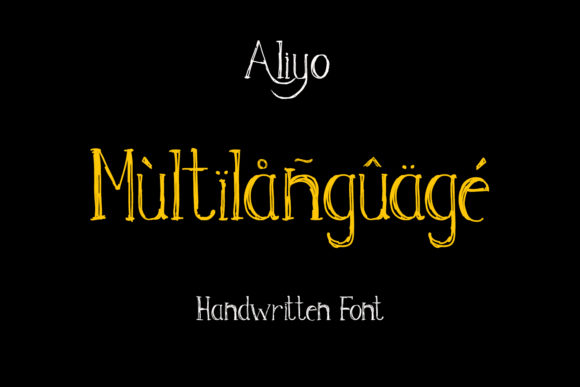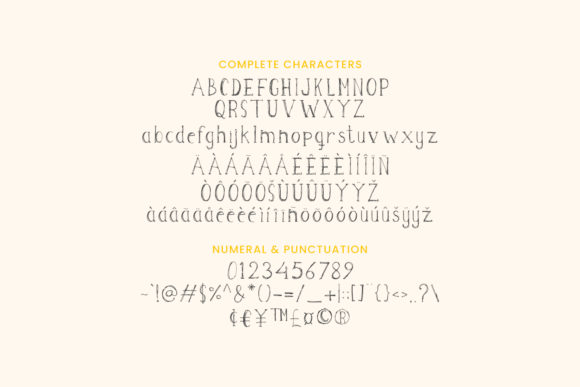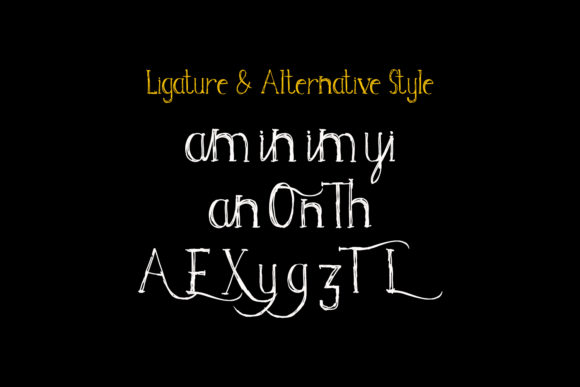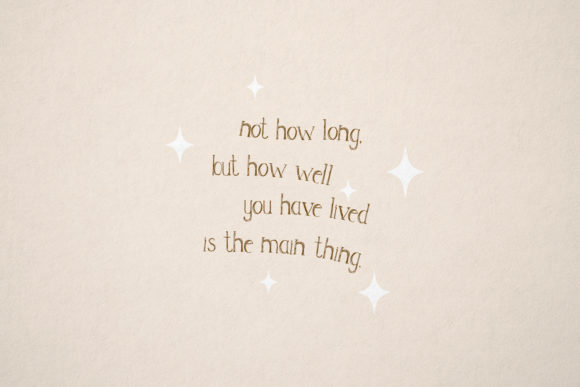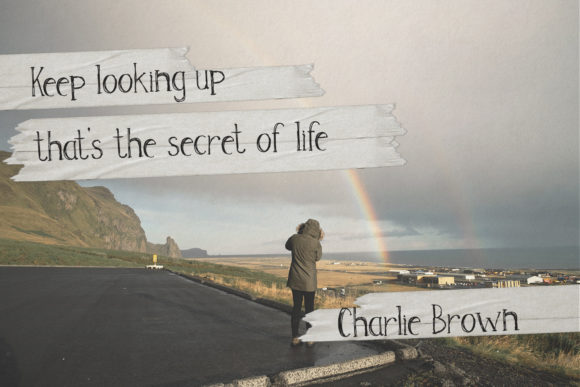
Give Your Designs a Personal Touch with Aliyo Script Font
There’s something magical about creating a new design, and it all starts with a spark of inspiration. Maybe it’s a late-night brainstorming session, a glimpse of a beautiful sunset, or a conversation with a friend. Whatever it is, it’s that moment when the ideas start flowing, and your creative juices start to simmer. For designers, this moment is precious, and it’s where the magic happens. But, have you ever struggled to capture that perfect, authentic feel in your designs?
Enter the Aliyo Script Font, a beautifully crafted, handwritten font that adds a touch of warmth and personality to any project. Perfect for signatures, stationery, logos, and more, this font is a must-have for designers who want to give their designs an authentic, handcrafted feel. With its unique, flowing script, the Aliyo Script Font is a valuable addition to any design toolkit.
Aliyo Script Font Key Features
- Font Family: Aliyo Script, a beautiful and elegant script font designed to add a touch of sophistication to your designs.
- Unique Characteristics: Aliyo Script features a unique blend of elegant and modern script styles, with swashes and flourishes that add a touch of sophistication to your designs.
Review: Aliyo Script Font
I’ve had the chance to work with the Aliyo Script Font, and I’m excited to share my honest thoughts.
The Aliyo Script Font has a unique, elegant feel to it. It’s perfect for creative projects, especially those that require a touch of sophistication. The font is highly legible, making it suitable for a wide range of applications.
- Excellent for branding and logo design
- Pairs well with modern and classic typography
- Works beautifully in both print and digital media
While the Aliyo Script Font is a beautiful addition to any design project, it does have some limitations. For instance, it may not be the best choice for projects that require a bold, eye-catching font. Additionally, some characters may not be as detailed as others, which can affect the overall consistency of the design.
- May not be suitable for bold or dramatic typography
- Some characters may lack detail or uniformity
Overall, I think the Aliyo Script Font is a great addition to any designer’s toolkit. While it may not be perfect for every project, it’s a beautiful and elegant font that can add a touch of sophistication to any design.
Tips for Getting the Most Out of Aliyo Script Font
To get the most out of Aliyo Script Font, try the following:
- Use it for creative and artistic projects, such as invitations, posters, and social media graphics.
- Experiment with different font sizes, colors, and styles to create a unique look.
- Pair Aliyo Script Font with other fonts to create a visually appealing contrast.